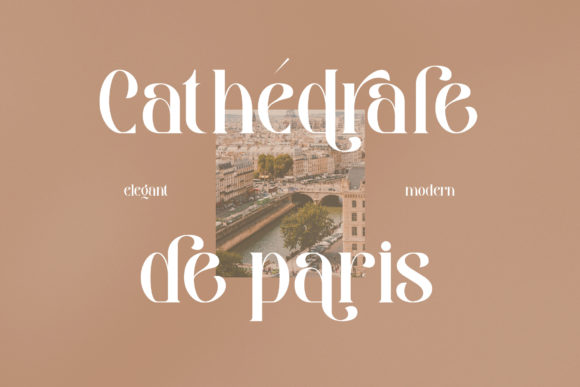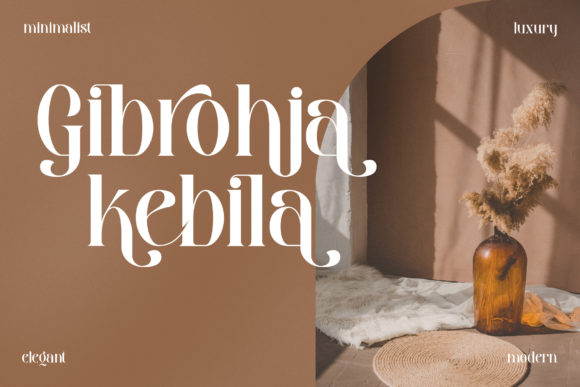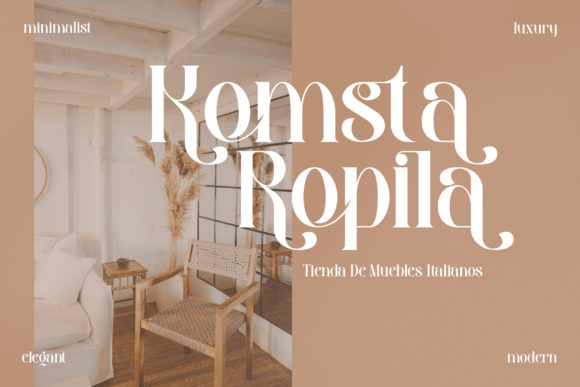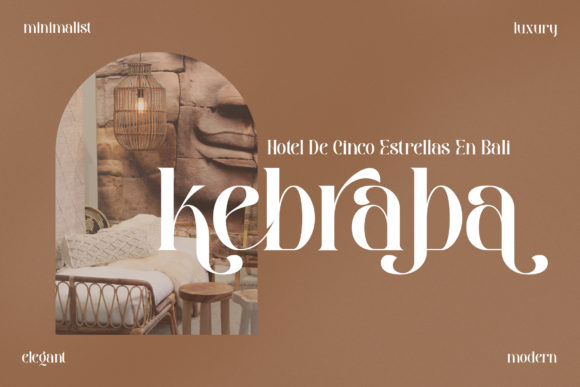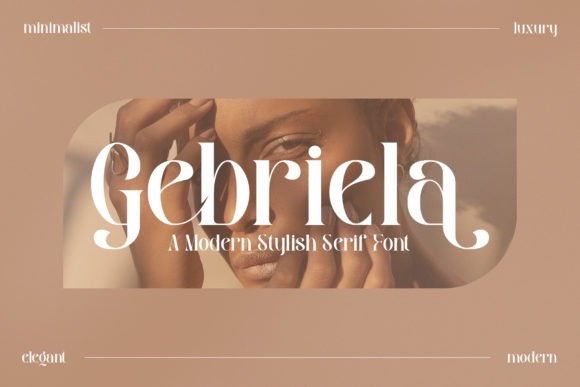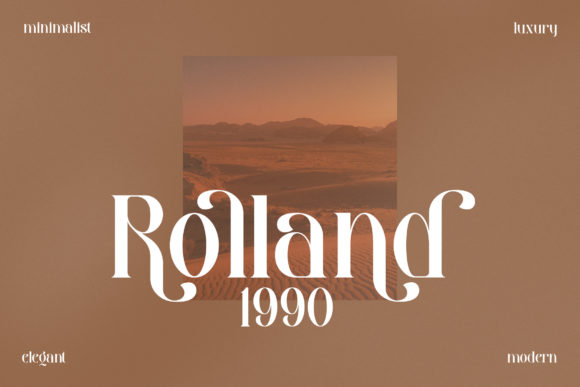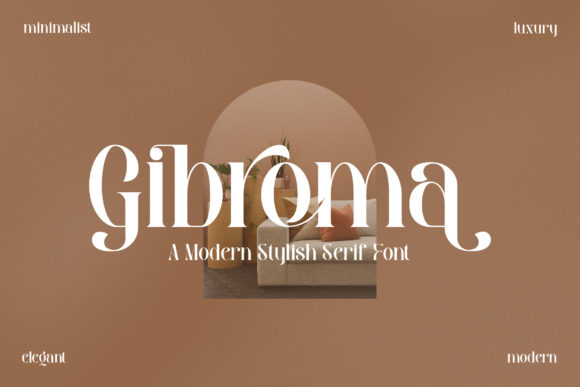
Introducing Gibroma Font: The Epitome of Elegance and Luxury
In the realm of typography, a new star has emerged, captivating the hearts of designers and crafters alike. Say hello to Gibroma Font, a modern and classic serif typeface that exudes sophistication and refinement. This stunning font is poised to elevate your designs to new heights, whether you’re crafting an elegant logo, a book or movie title, or a fashion brand’s visual identity.
A Unique Blend of Modernity and Classicism
Gibroma Font strikes the perfect balance between modernity and classicism, making it an exceptional choice for designers seeking a unique and timeless look. Its serif design lends an air of tradition and luxury, while its clean lines and subtle nuances infuse a sense of modern sophistication. This harmonious blend allows Gibroma to seamlessly adapt to a wide range of design applications.
The versatility of Gibroma Font is one of its most compelling attributes. This remarkable typeface can be used for:
• Elegant logos that command attention and respect
• Book and movie titles that evoke a sense of grandeur and drama
• Fashion brand identities that exude style and sophistication
• Magazine and newspaper designs that require a touch of refinement
• Clothing and apparel designs that demand a high-end aesthetic
• Lettering and quotes that require a distinctive and elegant flair
What Sets Gibroma Apart
In a sea of typefaces, Gibroma Font stands out for several reasons:
• Unique Style: Gibroma boasts a distinctive style that sets it apart from more traditional serif fonts.
• Modern Look: Its subtle nuances and clean lines infuse a sense of modernity, making it perfect for designs that require a contemporary edge.
• Elegance and Luxury: Gibroma exudes refinement and sophistication, making it an ideal choice for high-end designs.
Tips for Using Gibroma Font
To get the most out of Gibroma Font, consider the following design tips:
• Experiment with Font Sizes: Gibroma’s elegant design shines at larger font sizes, making it perfect for headlines and titles.
• Play with Swashes: Utilize the font’s swashes to add a touch of flair to your designs.
• Pair with Complementary Fonts: Combine Gibroma with sans-serif fonts for a striking contrast.
Gibroma Font is a game-changing typeface that is poised to become a staple in every designer’s toolkit. Its unique blend of modernity and classicism, combined with its PUA encoding and extensive design possibilities, make it an exceptional choice for a wide range of design applications. Whether you’re a seasoned designer or a crafty enthusiast, Gibroma Font is sure to inspire and elevate your designs to new heights.